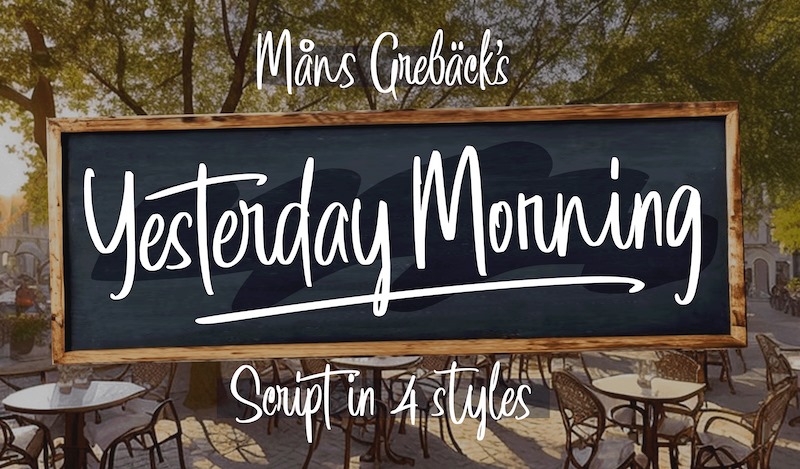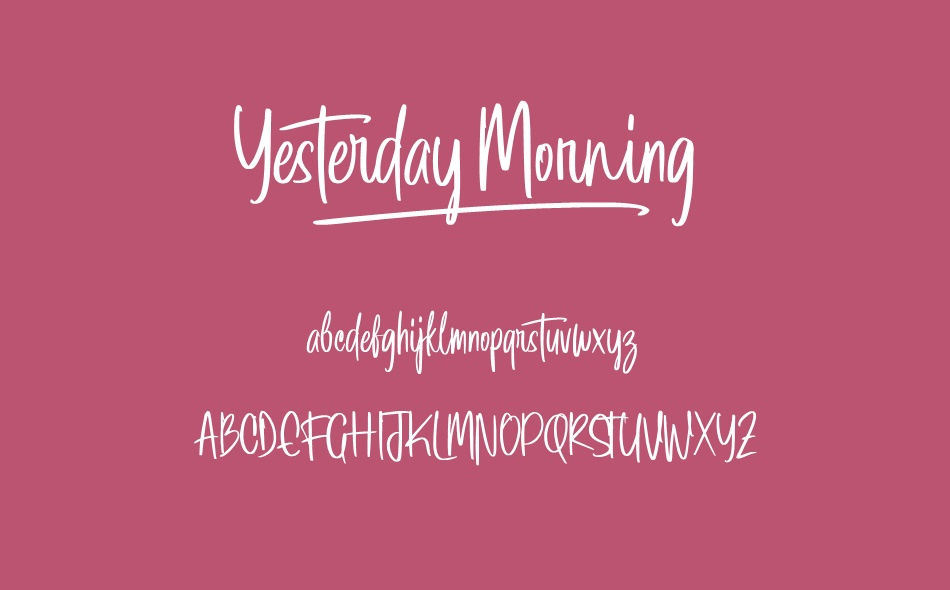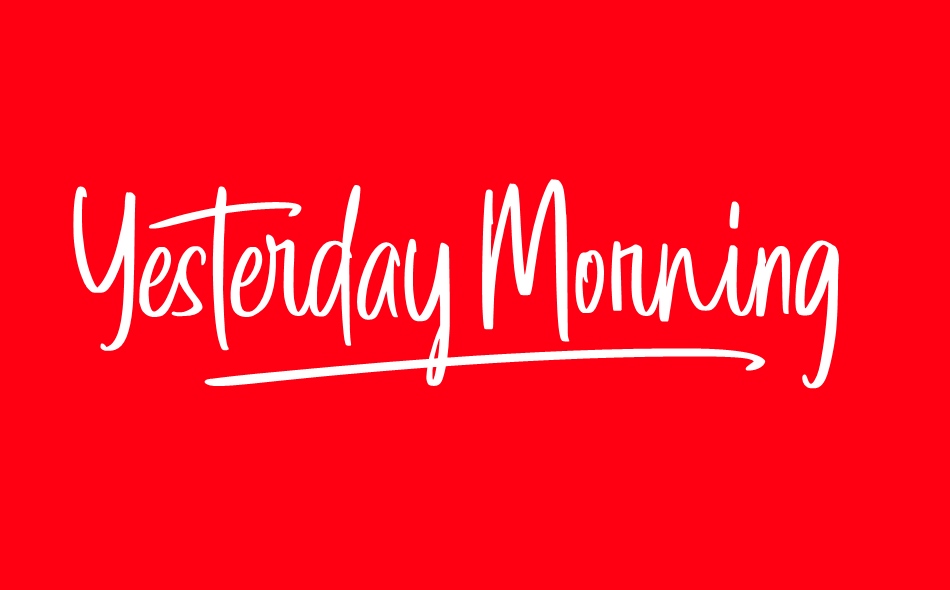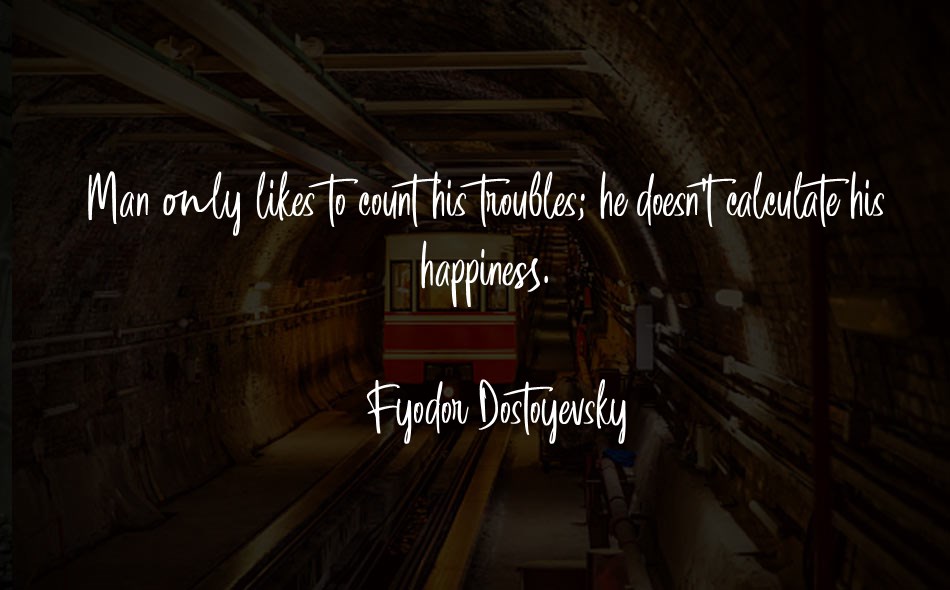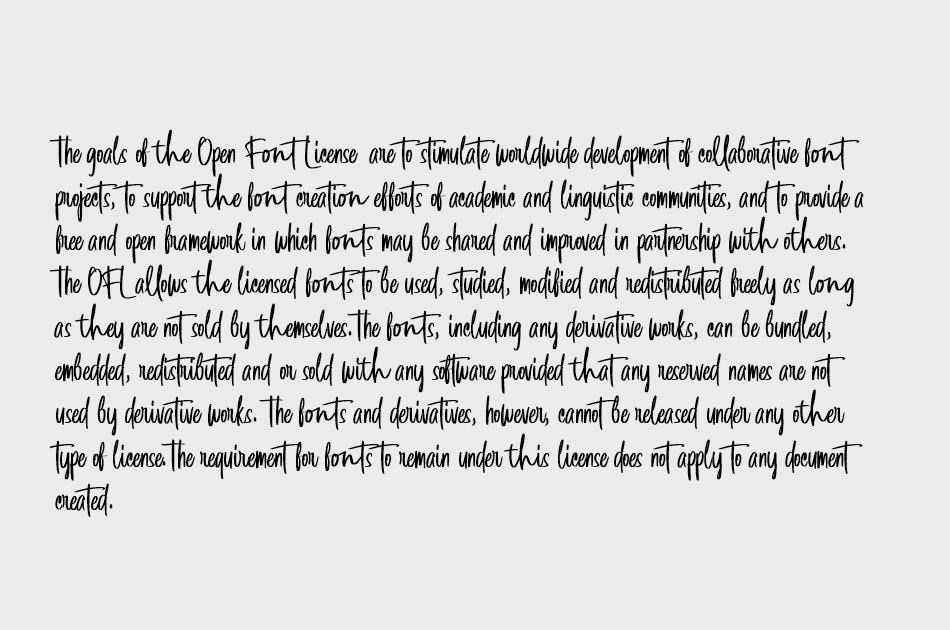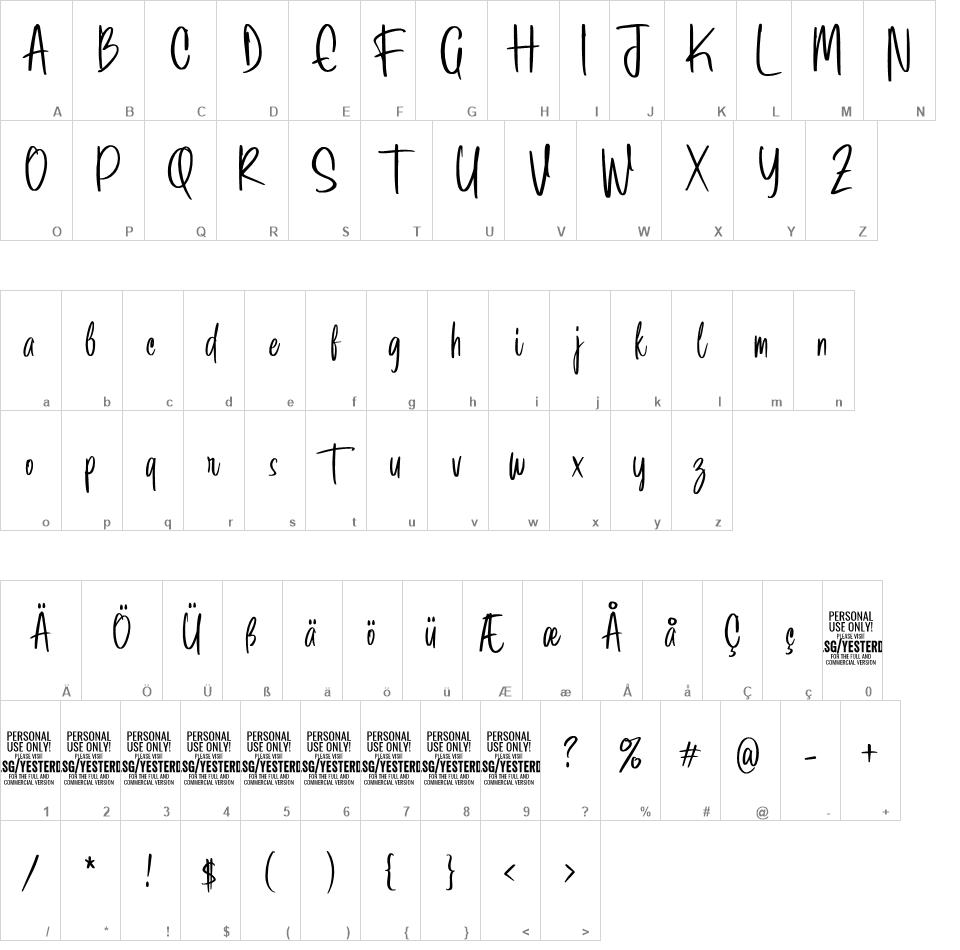
Yesterday Morning font
Yesterday Morning is a lively handwriting font that captures the essence of an active and cute brush style.
The font's hand-brushed appearance has an authentic touch, making it feel warm and approachable.
Use underscore _ anywhere in a word to make a swash.
Use multiple underscore to make different swashes.
Example: Crea___tion
Yesterday Morning is a lively handwriting font that captures the essence of an active and cute brush style. This handmade calligraphy font is perfect for fashion projects, adding a sense of energy and excitement to your designs.
The font family's hand-brushed appearance brings an authentic, personal touch to your creative work, making it feel warm and approachable.
Use underscore _ anywhere in a word to make a swash.
Use multiple underscore to make different swashes.
Example: Crea___tion
The Yesterday Morning font family includes four engaging styles to suit various design needs:
Regular: A balanced and energetic style for everyday use
Regular Italic: Adds a playful touch and a sense of movement
Bold: Offers a bolder, more assertive presence for impactful designs
Bold Italic: Combines the strength of bold with the flair of italic
Built with advanced OpenType functionality, Yesterday Morning ensures top-notch quality and provides you with full control and customizability. It includes stylistic alternates, ligatures, and other features to make your designs truly unique.
The font offers extensive lingual support, covering all Latin-based languages, from Northern Europe to South Africa, from America to South-East Asia. It contains all the characters and symbols you'll ever need, including all punctuation and numbers.